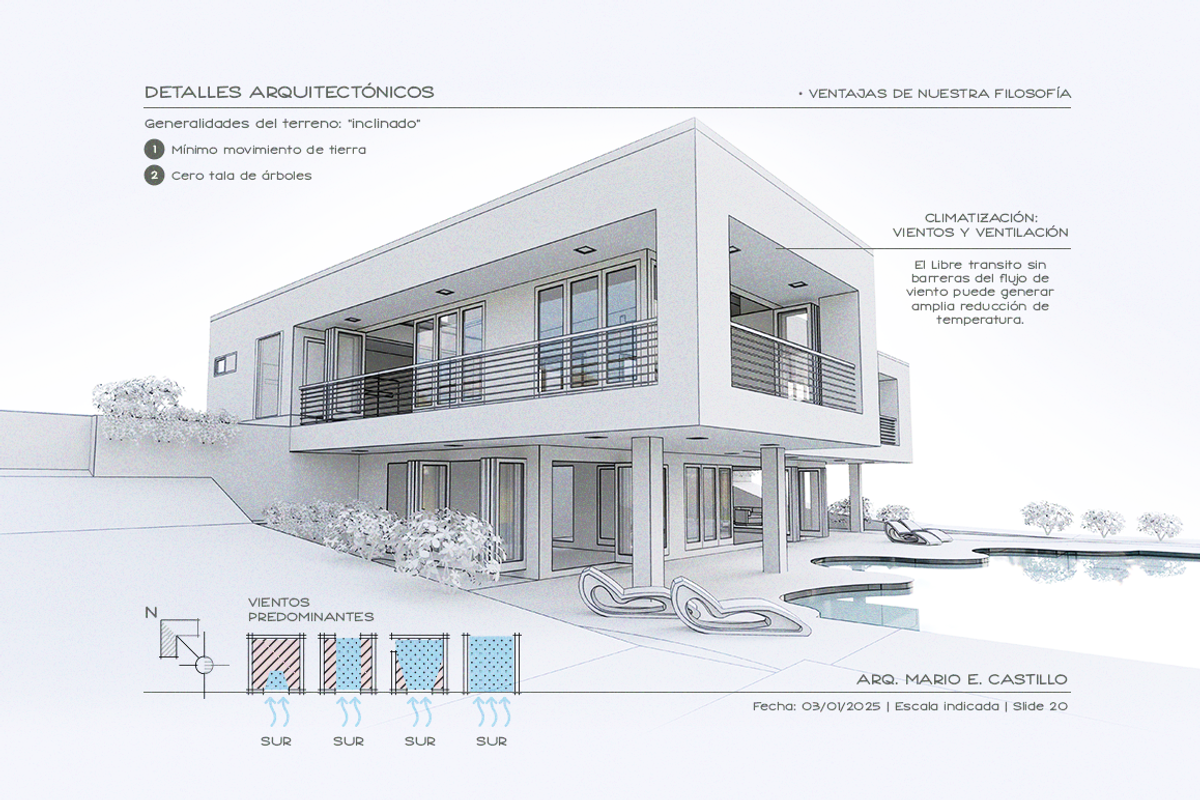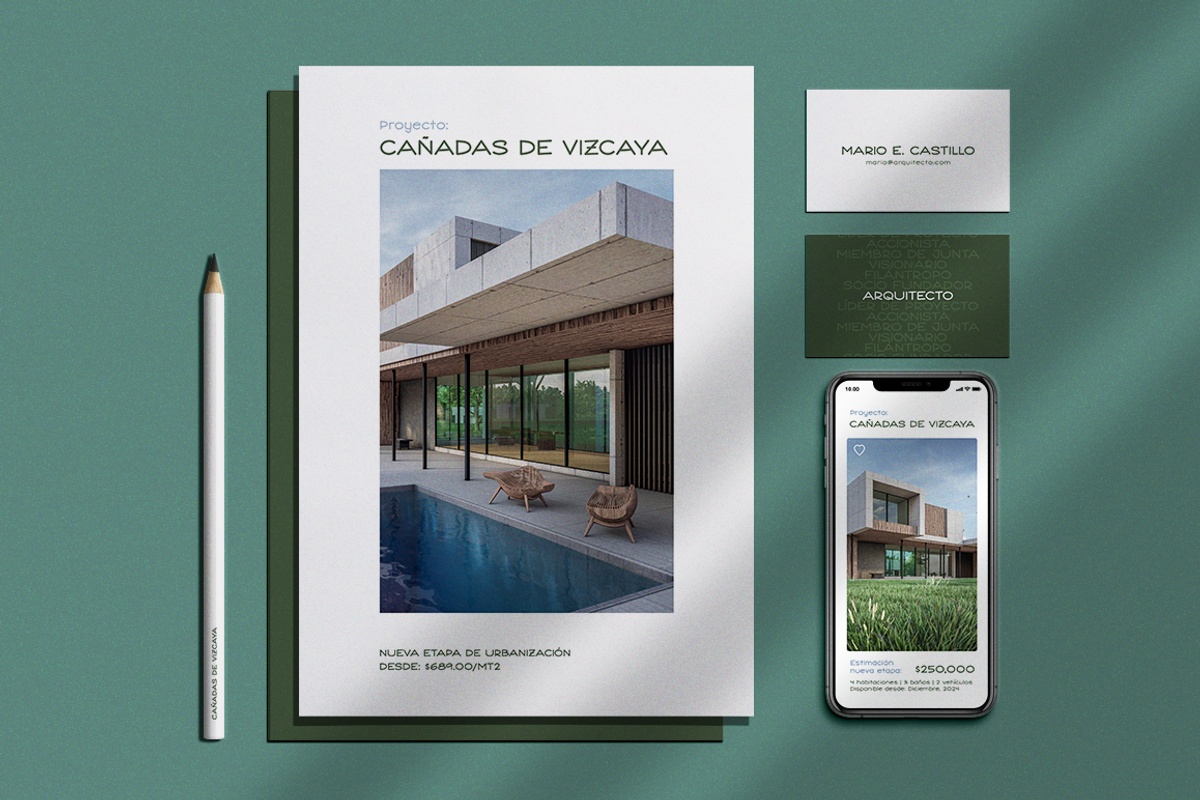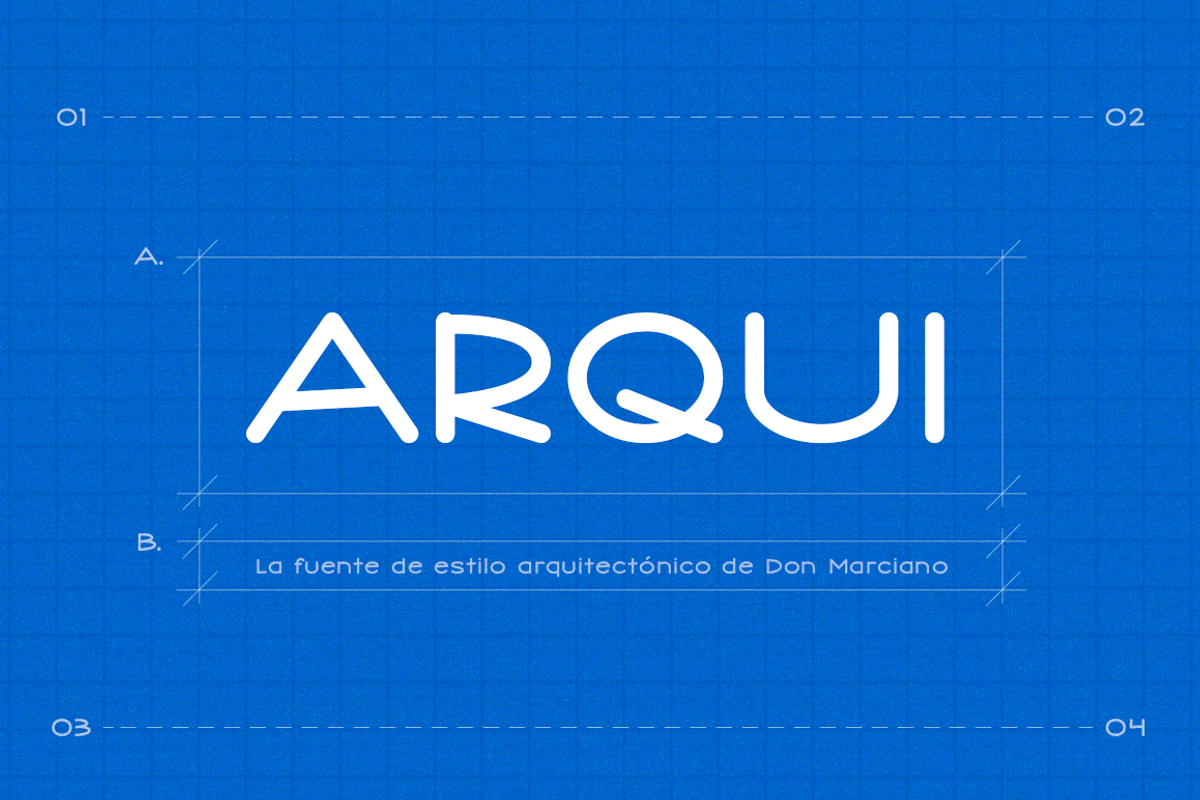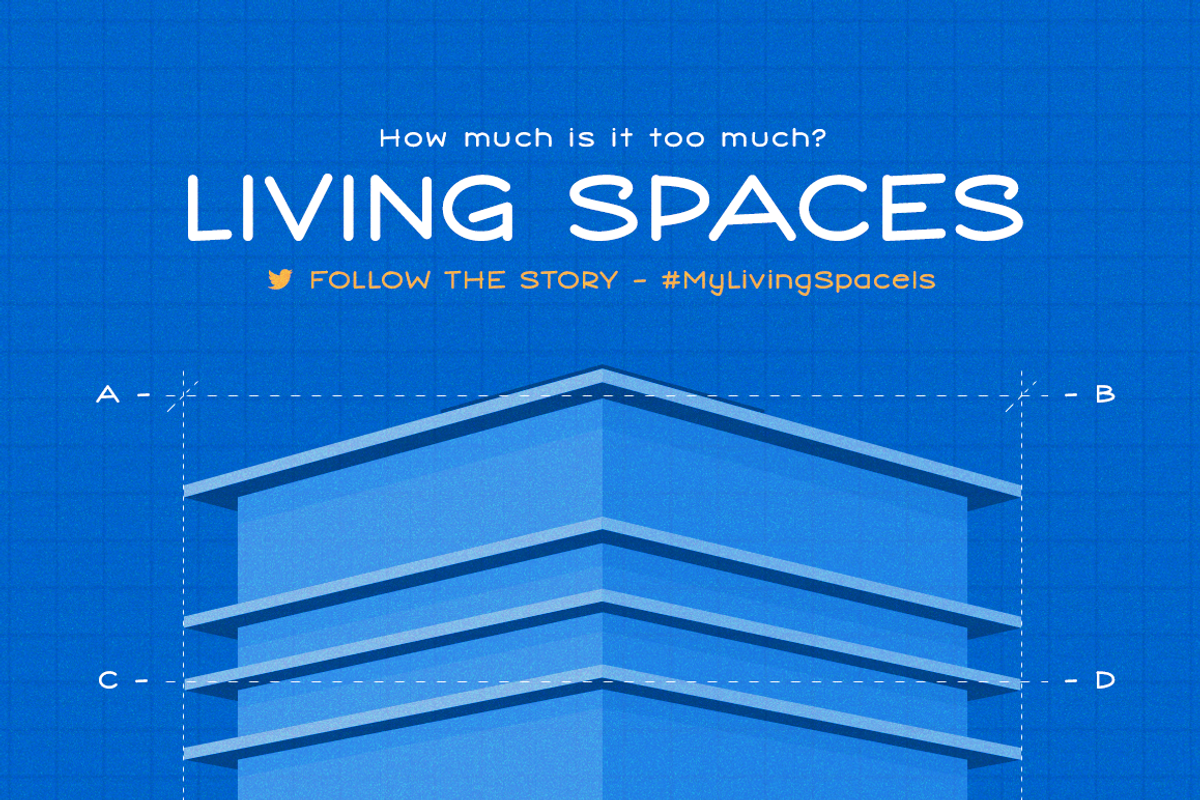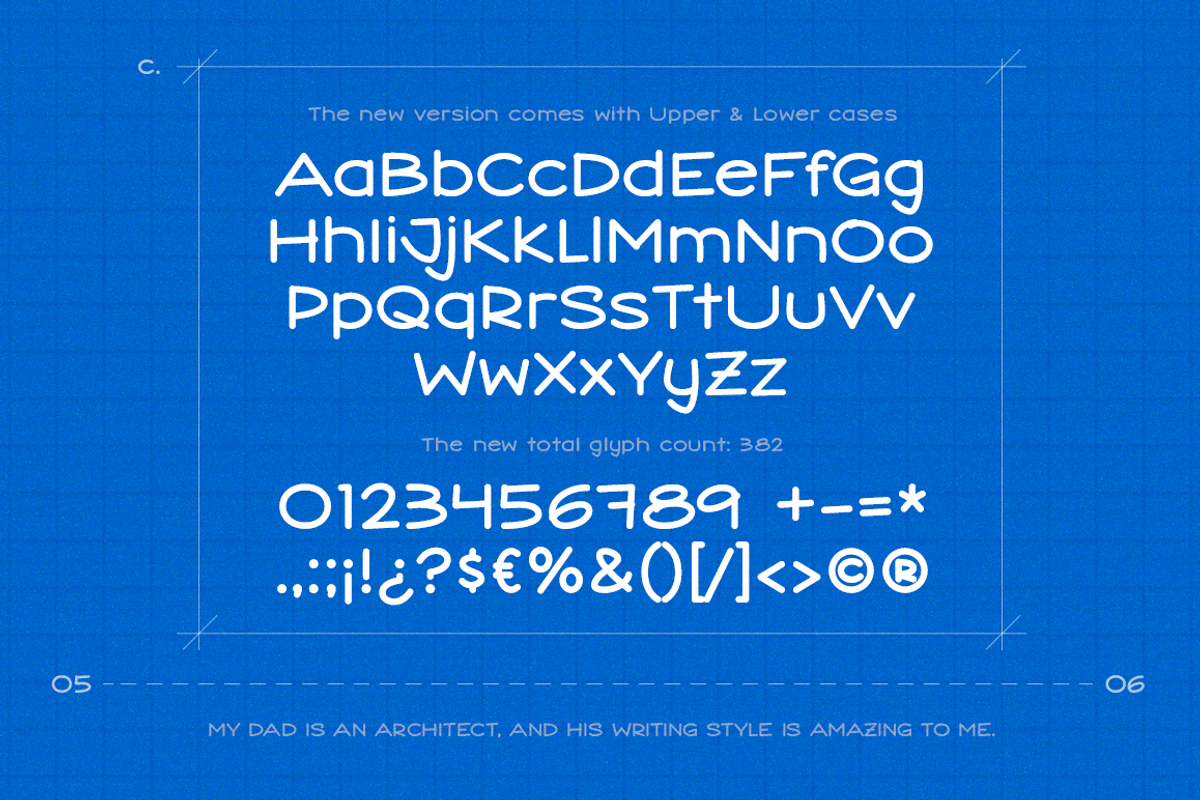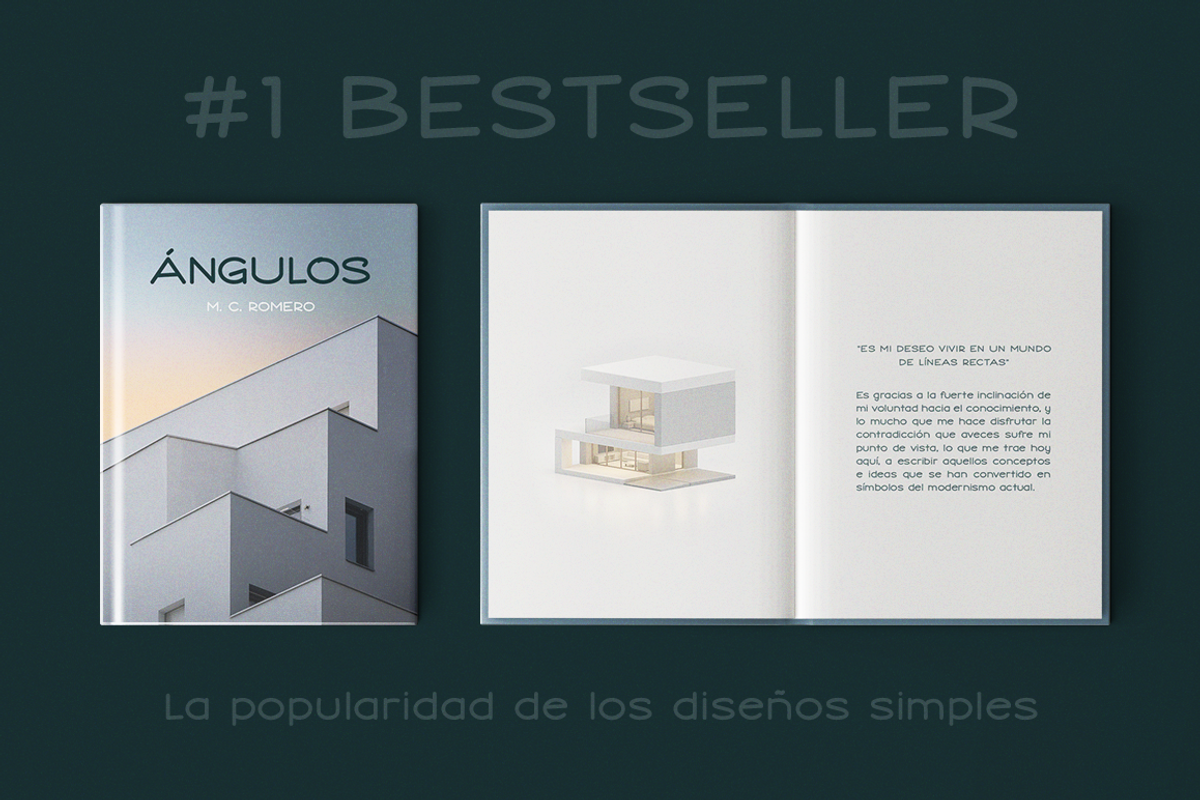
Arqui - Architect Blueprint Font
Arqui is a font created in the old school blueprint - schematics type of style, designed to fill the need for a realistic contemporary look for projects related to the construction industry, I took the inspiration and named its design after my architect father's handwriting, hence the name “Arqui”; where detail is the name of the game and everything needs to double-check, we introduce one of our most beloved fonts yet.